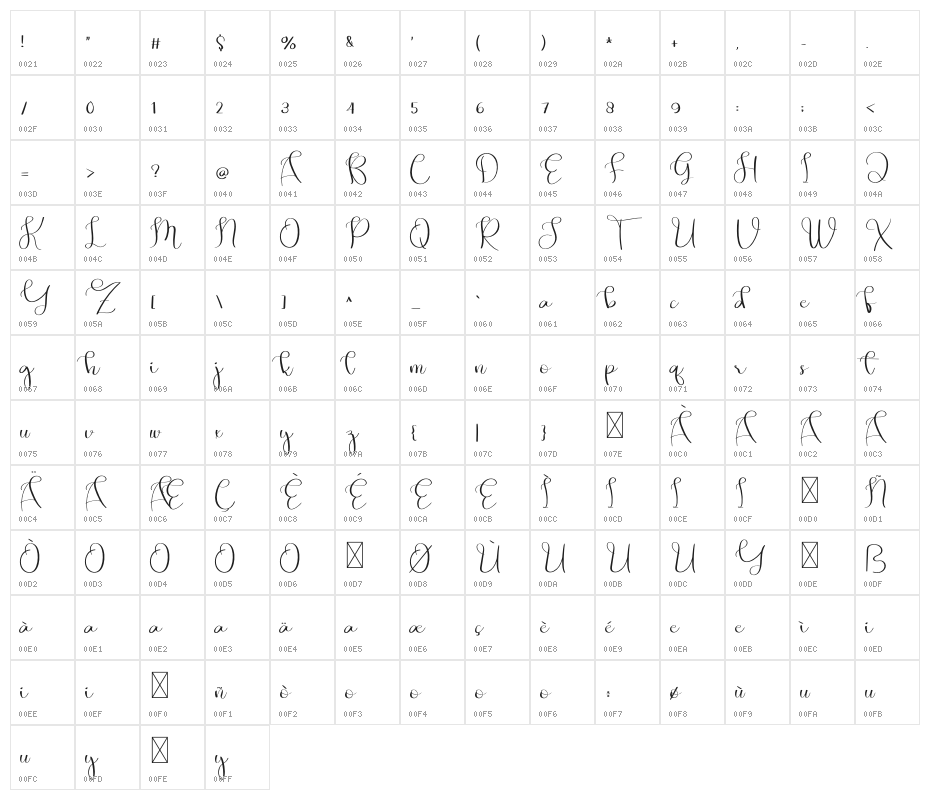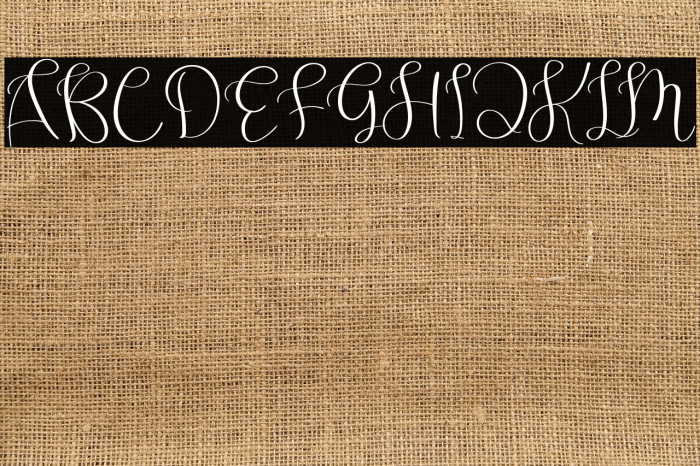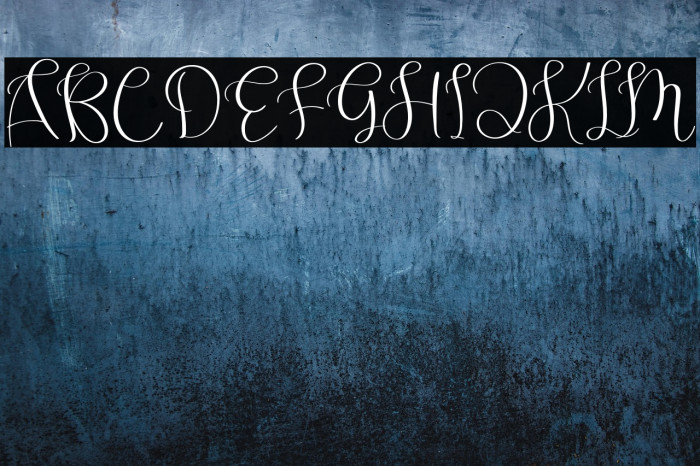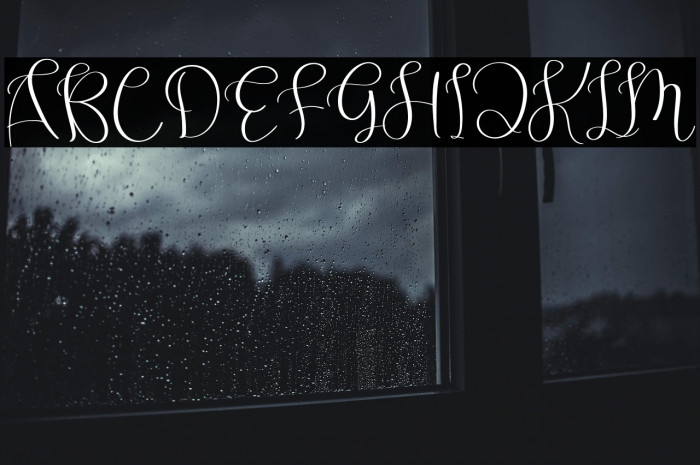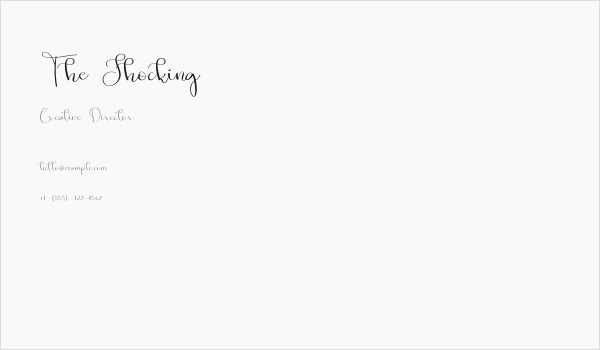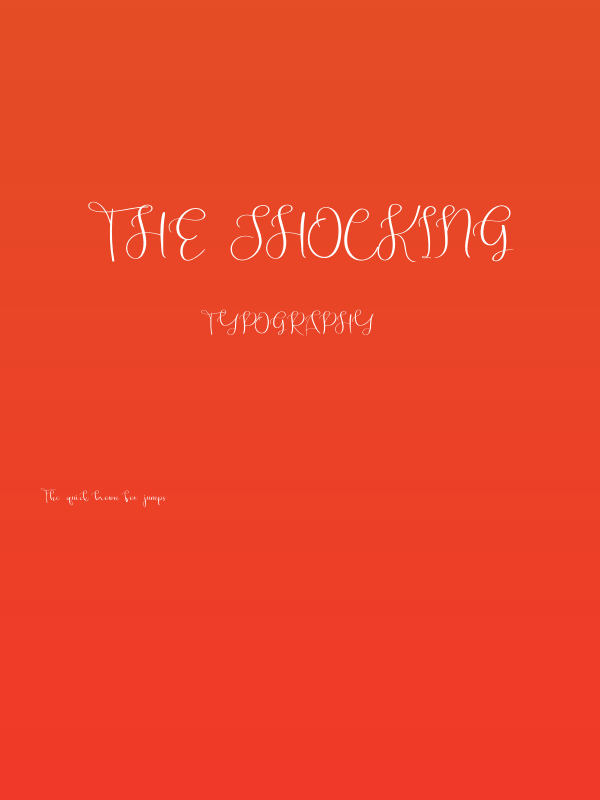
The Shocking Font
| Stile generale | Elegant |
| Caso d'uso | Logos, Invitations, Decorative text |
| Progetti proposti | Ideal for wedding invitations, elegant branding, greeting cards, and decorative signage. |